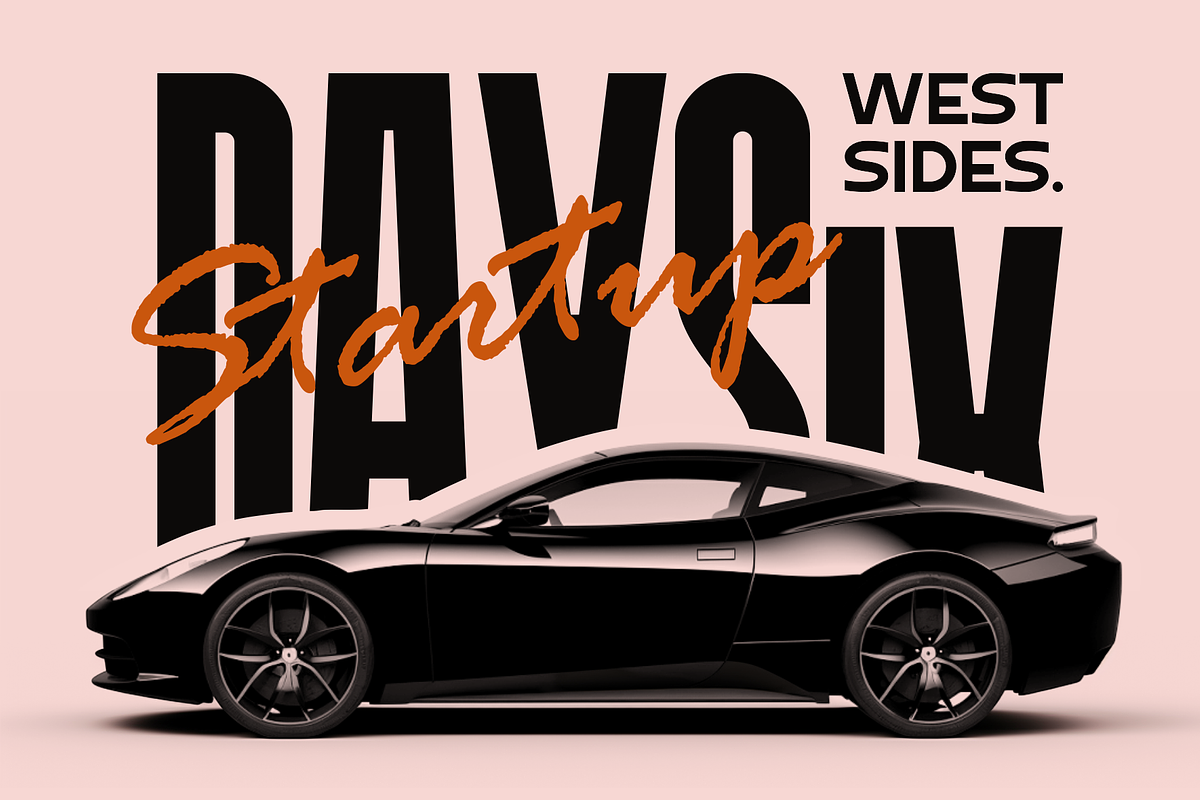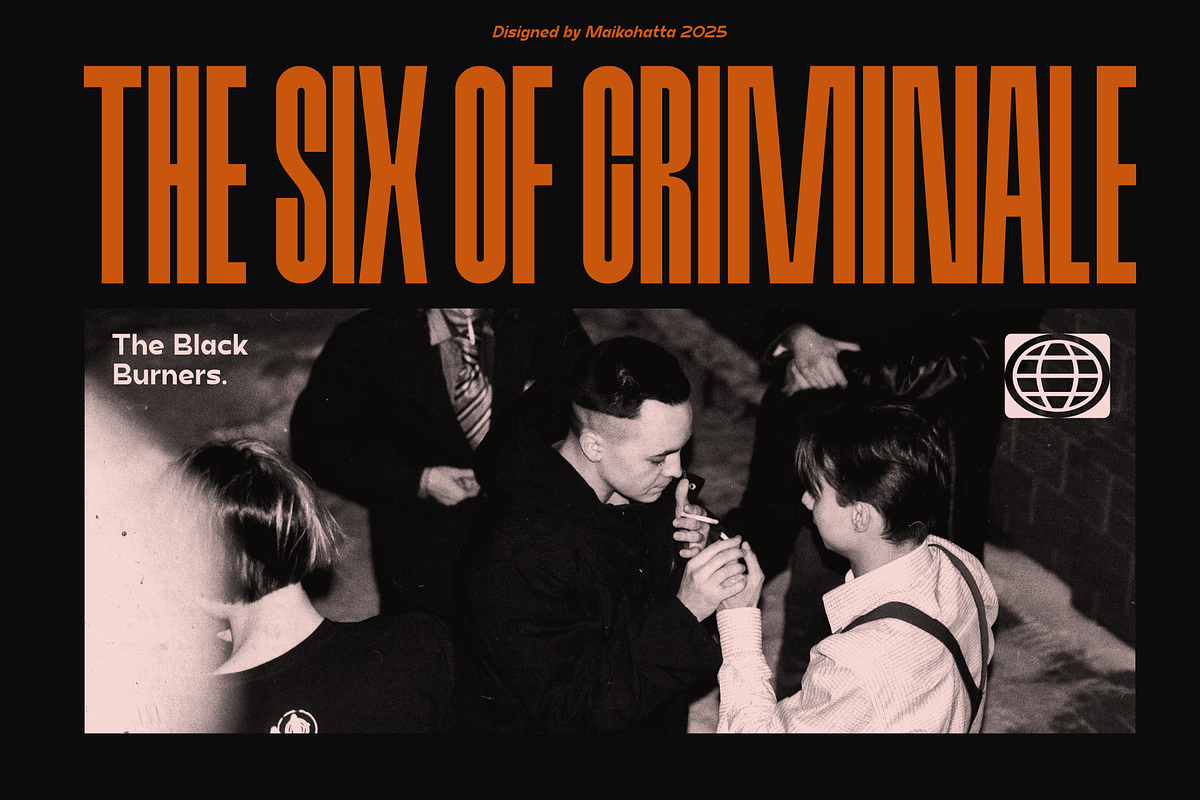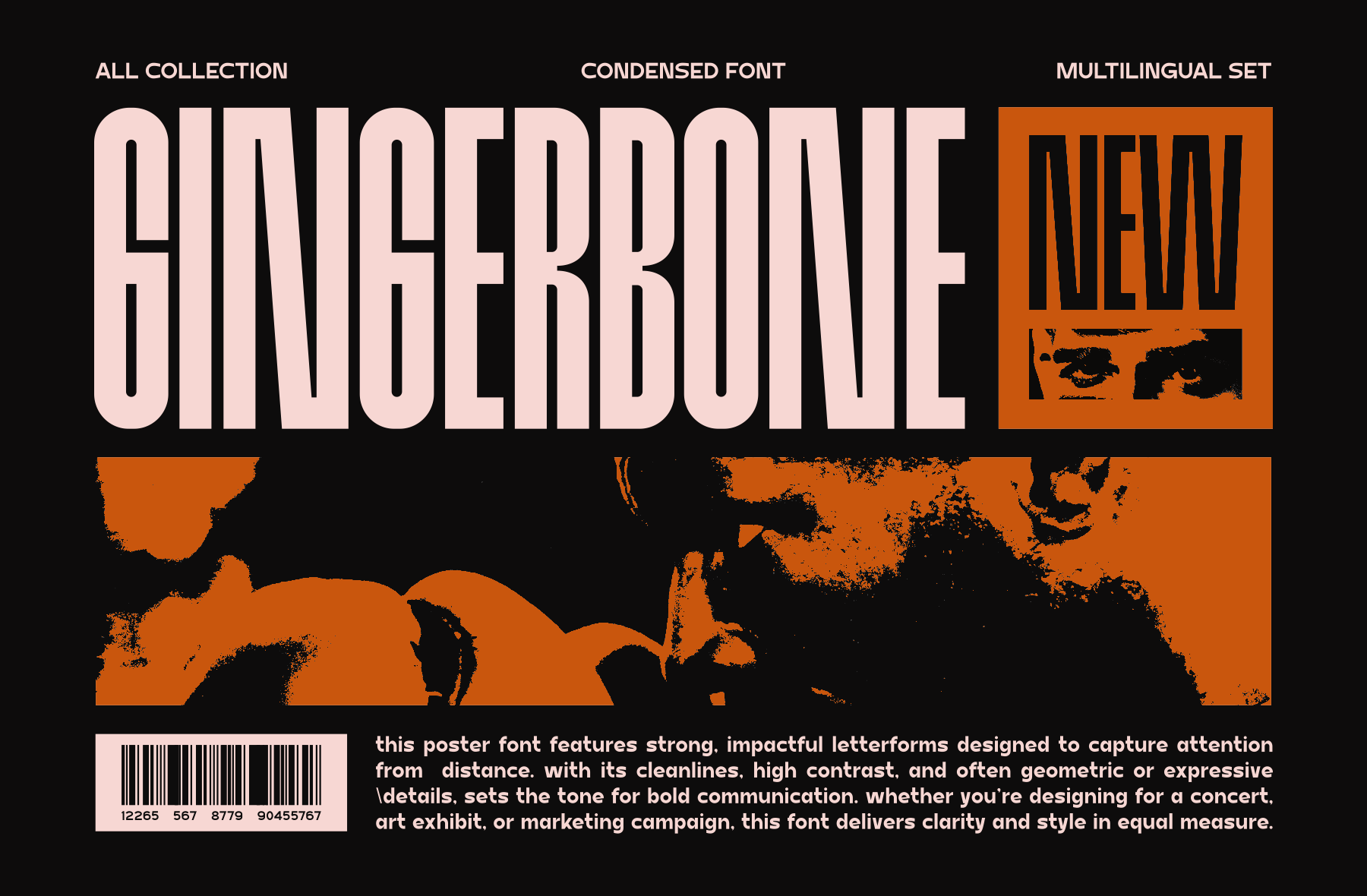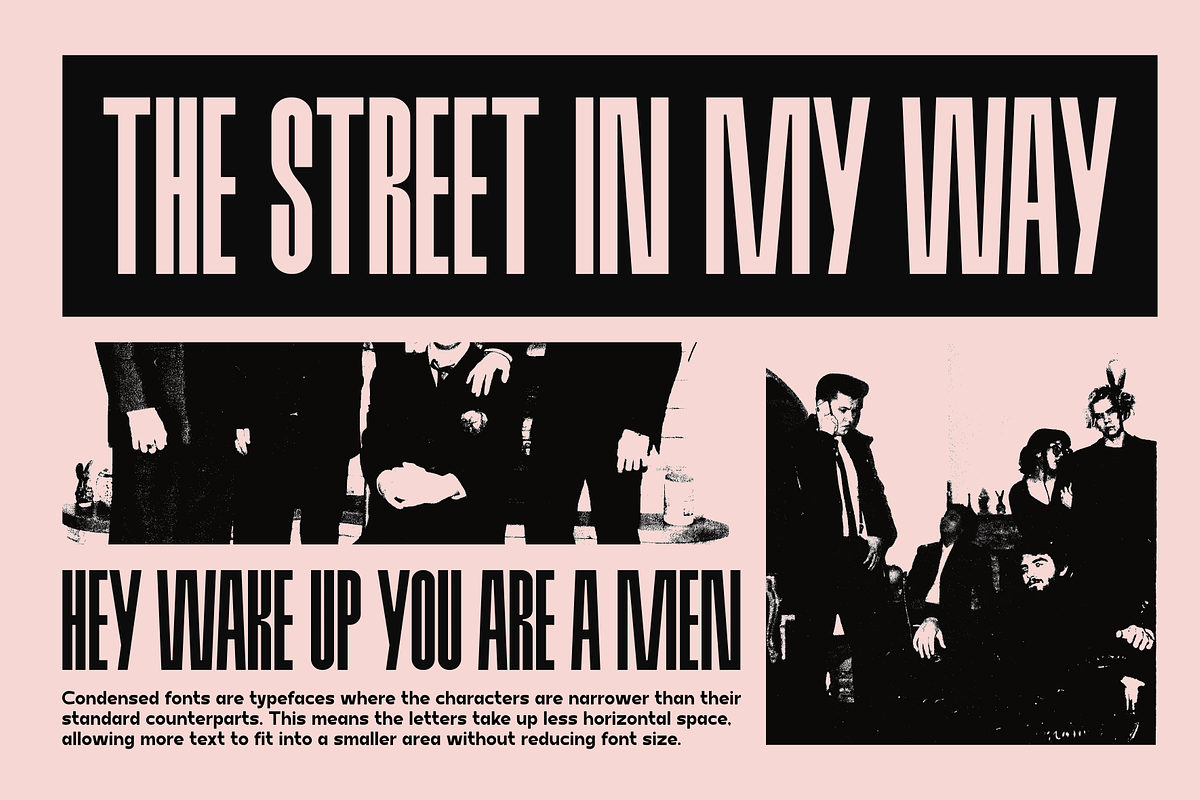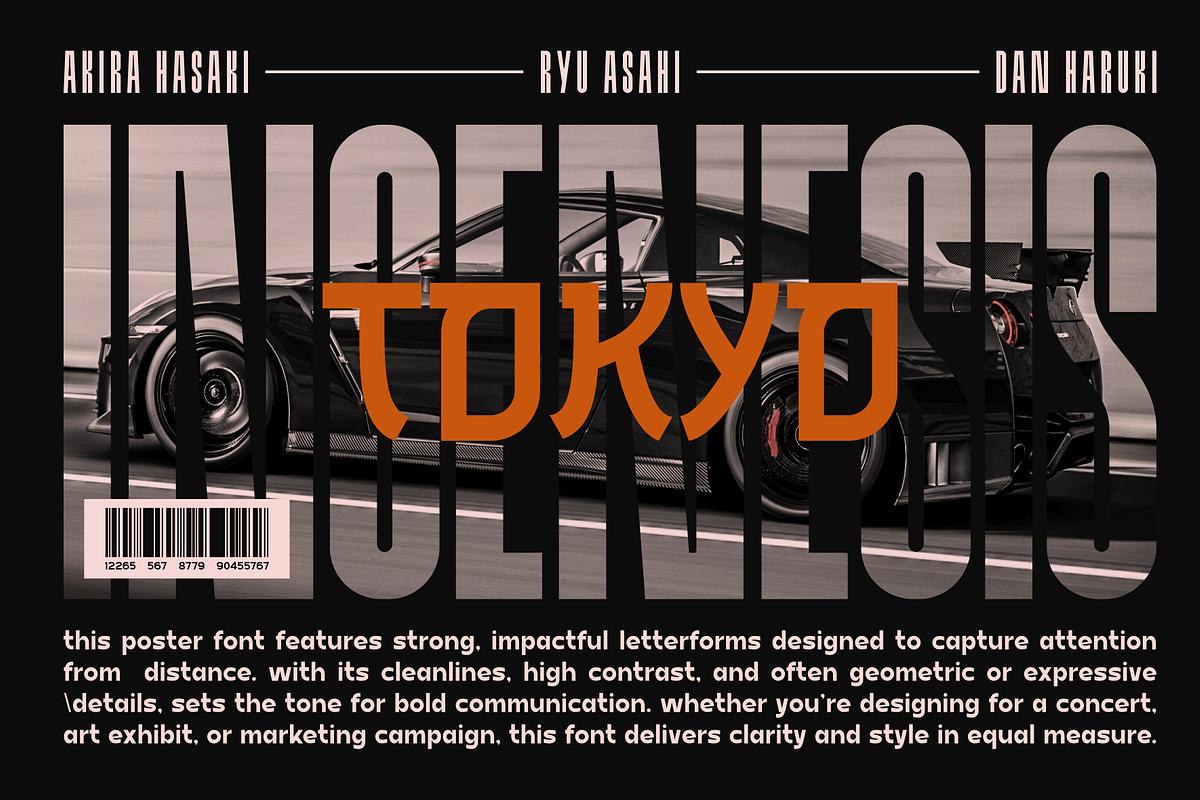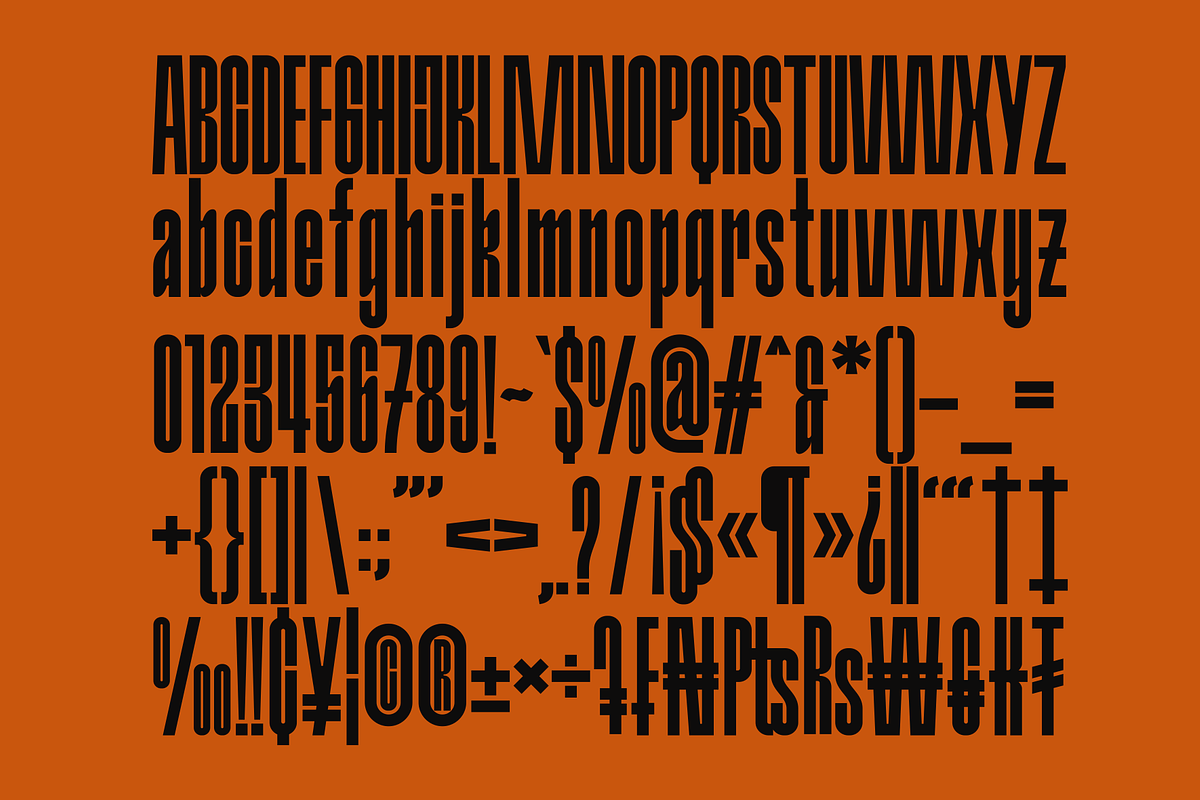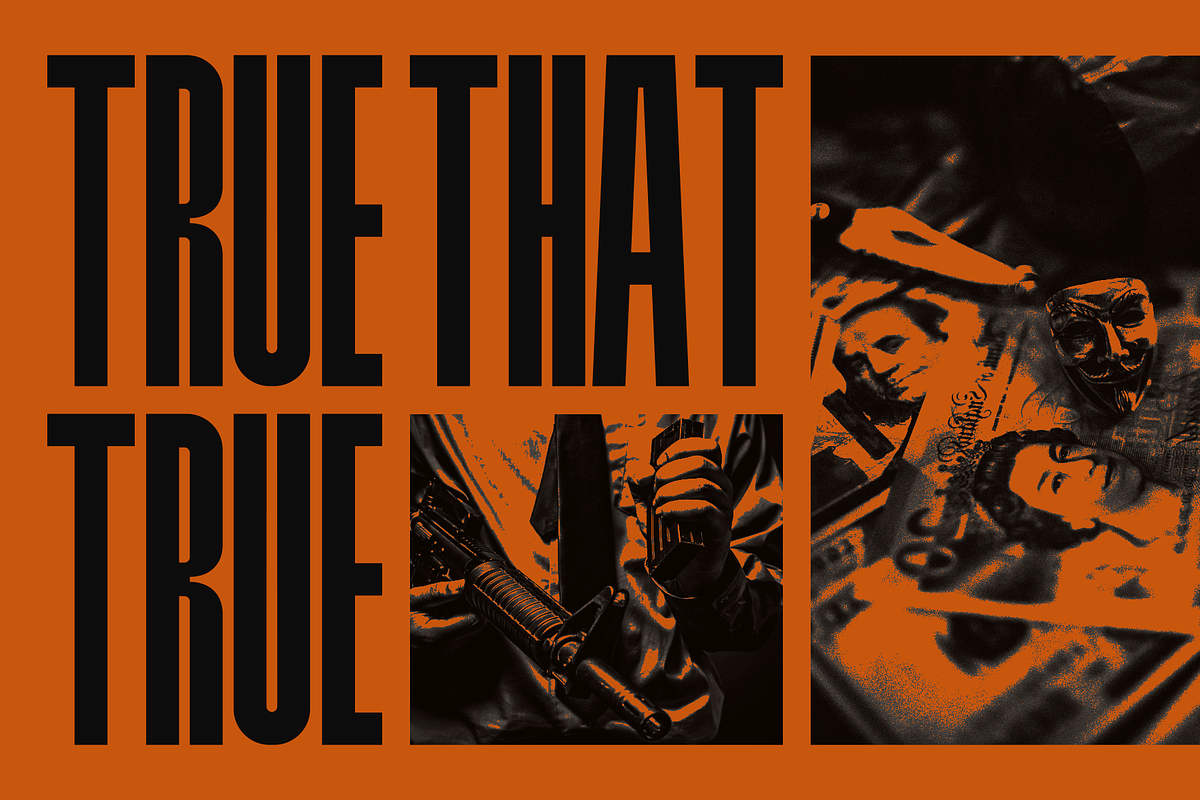
Gingerbone - Classic Condensed Font
Introducing our new product Gingerbone - Sans Serif Condensed Font
This font is a type of font that is characterized by narrower or slimmer letterforms compared to regular or wide fonts. Condensed fonts are often used in various graphic designs, print materials, and other media because they have distinct advantages and unique characteristics